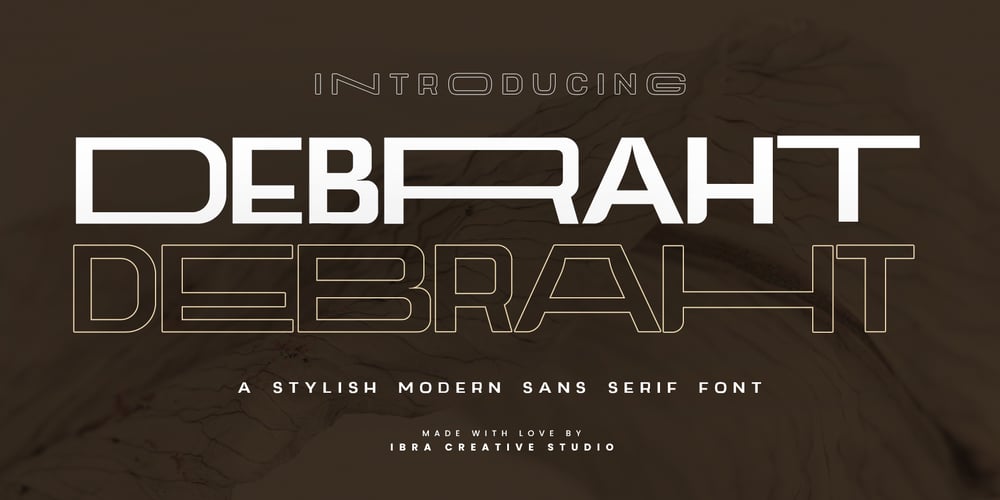
Debraht Font Family was designed by Roisatul Azizah and published by IbraCreative. Debraht contains 1 styles and family package options. Debraht is a striking example of a stylish modern sans-serif typeface, seamlessly blending contemporary design elements with timeless simplicity. With clean lines and a distinct geometric structure, Debraht exudes a sense of sophistication and versatility. Its balanced proportions and well-crafted letterforms make it an ideal choice for a wide range of applications, from elegant branding to sleek editorial layouts. The typeface’s attention to detail is evident in its subtle curves and thoughtful spacing, ensuring a harmonious and legible appearance across various platforms. Debraht effortlessly captures the essence of modern aesthetics, making it a go-to choice for those seeking a refined and chic typographic solution.